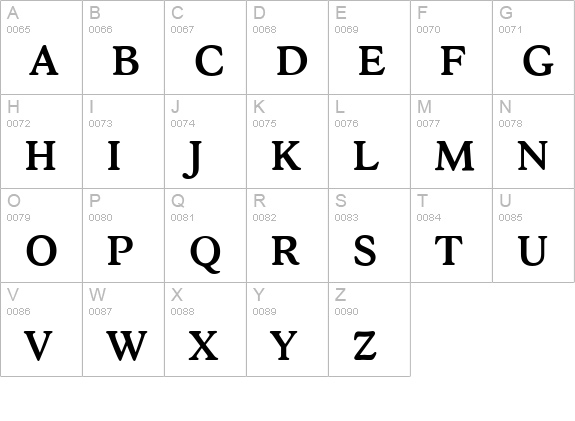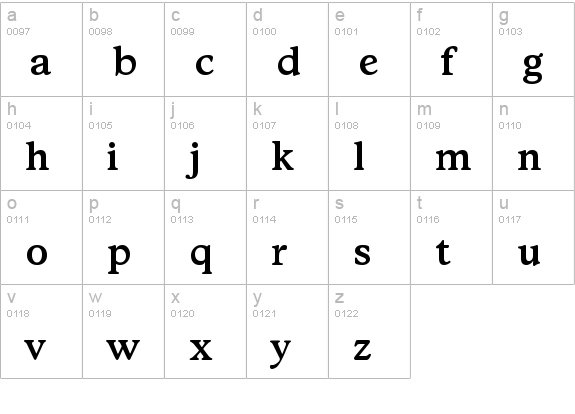
StratfordSerial-Medium-Regular Font Details
StratfordSerial-Medium-Regular is a balanced, medium-weight variant in the StratfordSerial typeface family \xE2\x80\x94 well suited to sub-headlines, navigation, and balanced editorial work.
StratfordSerial-Medium-Regular font is a versatile and elegant typeface that exudes sophistication and professionalism. With its clean lines and classic design, this font is perfect for various design projects, from branding to editorial work. The medium weight strikes a balance between boldness and readability, making it ideal for both headings and body text. What makes StratfordSerial-Medium-Regular font even more appealing is that it is available for free download at FontsMarket.com. This means you can easily access this high-quality font without any cost, making it a valuable addition to your font collection. Don't miss out on the opportunity to enhance your designs with this stylish and timeless typeface that is just a click away.